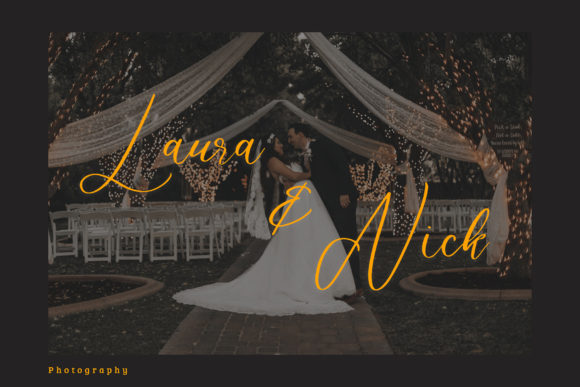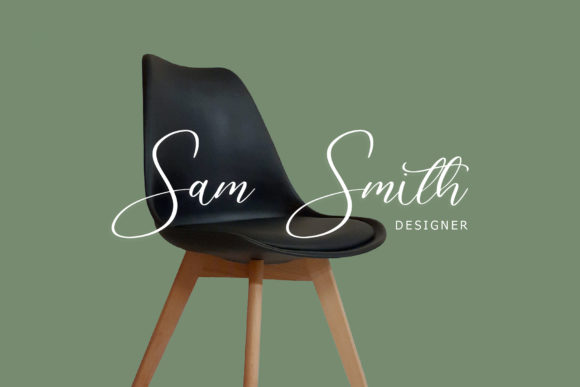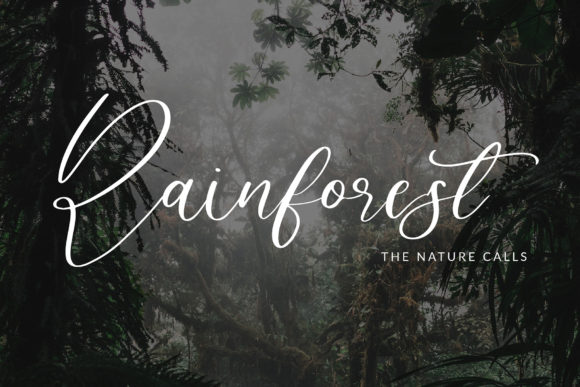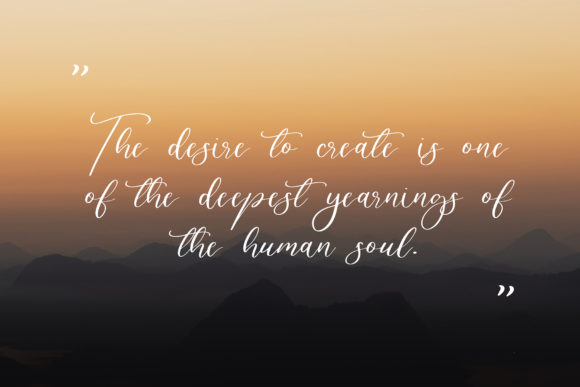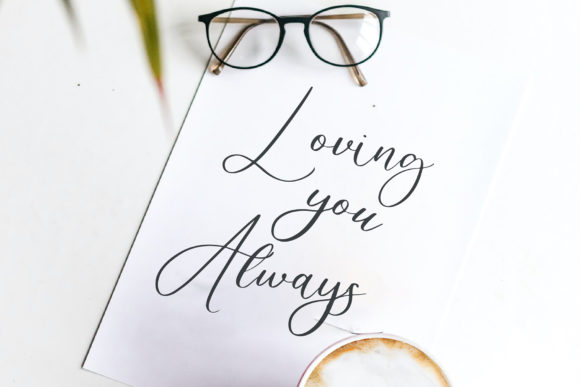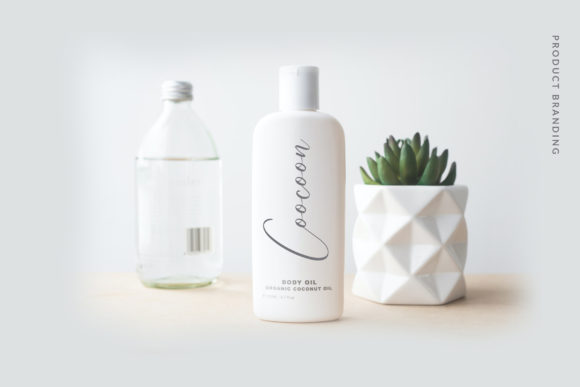
The Perfect Font for Your Masterpiece
You know that moment when inspiration strikes, and you can’t wait to bring your idea to life? For many creatives, it’s the spark that sets their imagination ablaze. Perhaps it’s a romantic gesture, a heartfelt letter, or a whimsical design concept – whatever it is, it deserves a font that’s as beautiful as the idea itself.
Enter the Ballegand Font, a stunning, handwritten script that’s perfect for adding a touch of elegance to your designs. This luxurious font is designed to evoke feelings of romance and nostalgia, making it the ideal choice for anything from wedding invitations to vintage-inspired advertisements.
As a designer, you know how much a font can elevate a project. That’s why the Ballegand Font is a valuable addition to any toolkit. Its versatility, combined with its timeless charm, makes it a go-to choice for creatives who want to add a personal touch to their work.
Ballegand Font Key Features
- Font Family: Ballegand is a script font designed to evoke a sense of elegance and sophistication.
- Character Count: The font includes a wide range of characters, including uppercase and lowercase letters, numbers, and punctuation marks.
- Unique Characteristics: The font features a unique, flowing script design with subtle connections between letters, giving it a natural and handwritten feel.
Review of Ballegand Font
Overall, I’m quite impressed with the Ballegand Font. Here are some of its notable features:
- ✨ Unique and modern aesthetic: The Ballegand Font has a distinctive look that sets it apart from other fonts.
- ✨ Versatile: It’s suitable for a wide range of applications, from headings to body text.
- ✨ Easy to read: The font’s clean design makes it easy on the eyes, even at smaller sizes.
- ⚠️ Limited language support: The Ballegand Font may not be optimized for certain languages or character sets.
- ⚠️ Limited customization options: While the font is modern and stylish, it may not be suitable for users who want a high degree of customization.
Overall, I think the Ballegand Font is a solid choice for designers who want a unique and modern look. While it may have some limitations, its strengths outweigh its weaknesses.
Tips for Getting the Most Out of Ballegand Font
Experiment with different font sizes, colors, and styles to achieve a unique look.
Use Ballegand Font in combination with other fonts to create a visually appealing design.
Pay attention to the font’s bold and italic styles to add emphasis and depth to your text.
Ballegand Font is ideal for:
Food and beverage branding
Travel and tourism marketing
Alternatives to Ballegand Font
Merriweather Font is a classic serif font, ideal for body text, especially in print media. It is highly legible and suitable for long passages of text.
It compares to Ballegand Font by having a similar classic feel but with more refined lines and a wider range of weights.
2. Playfair Display Font
Playfair Display Font is a luxurious, high-end serif font, suitable for titles and headings. It is elegant and sophisticated, perfect for creating a sense of luxury and grandeur.
It compares to Ballegand Font by being more ornate and decorative, but with a similar classic feel.
Lato Font is a modern sans-serif font, ideal for body text, especially in digital media. It is highly legible and suitable for a wide range of applications.
It compares to Ballegand Font by being more modern and clean, but with a similar sense of sophistication and elegance.
4. Georgia Font
Georgia Font is a classic serif font, ideal for body text, especially in digital media. It is highly legible and suitable for long passages of text.
It compares to Ballegand Font by having a similar classic feel, but with a more modern and refined approach to typography.